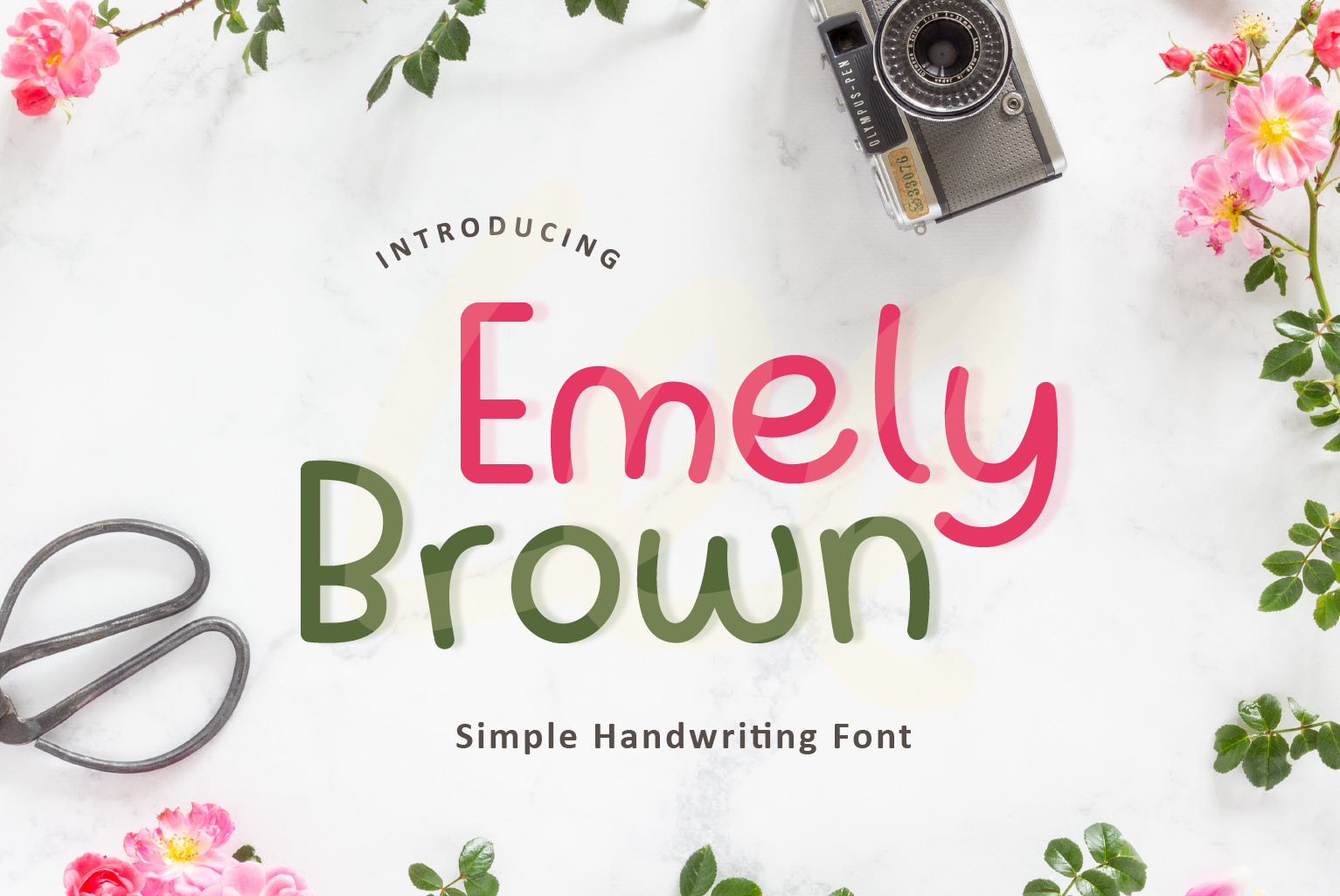
Emely Brown | Handwritten Font
Emely Brown is a cute and simple handwritten font. Suitable for use as a substitute for handwriting. Arunika Renjana can be applied if you want to use simple and easy-to-read writing such as notes, bodytext, posts on Instagram. In addition, it can be applied to printed products such as books, clothes, etc.Thanks for checking out my shop, and feel free to get in touch! suntype07@gmail.com